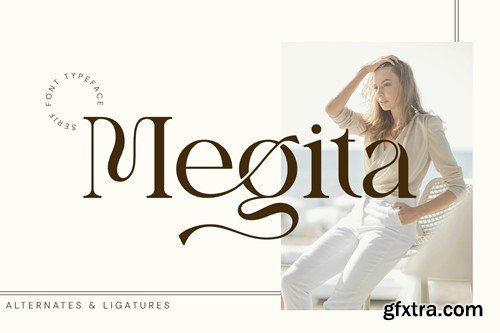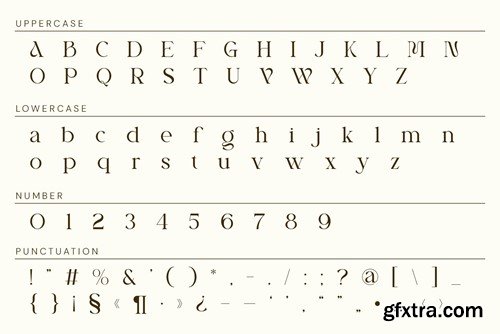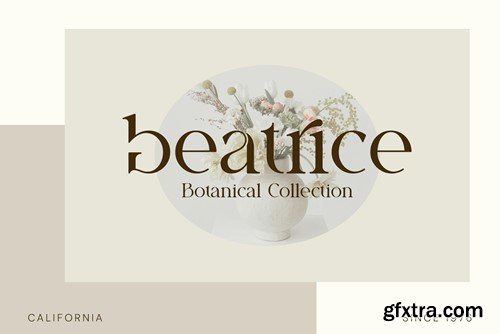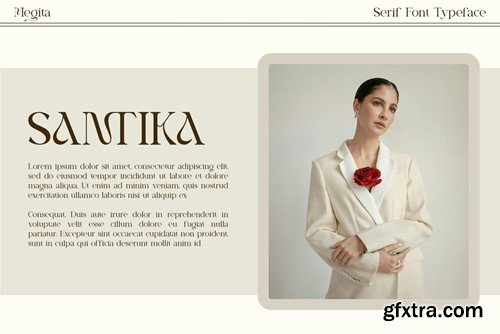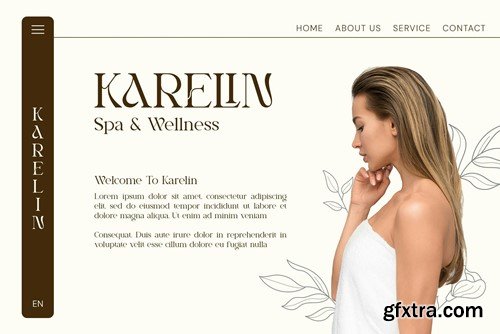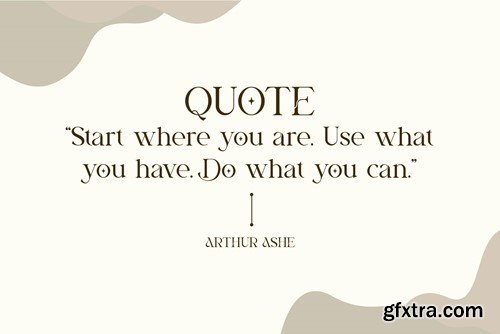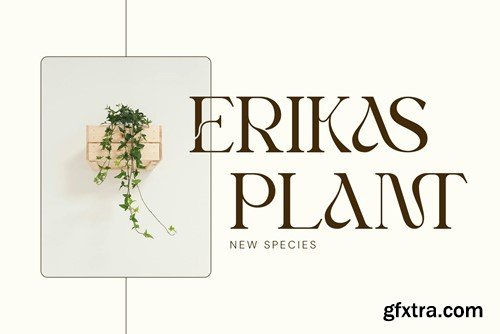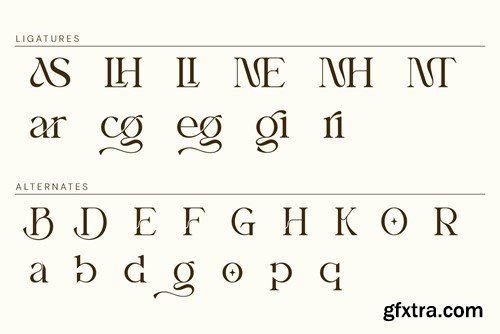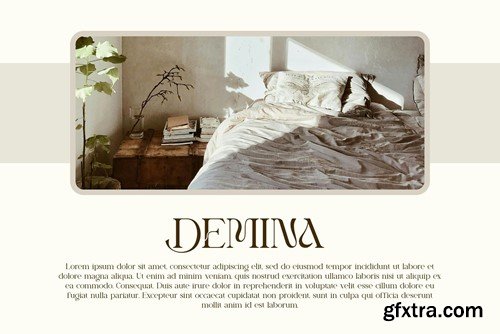
Megita Serif Font
Megita Serif is a balanced, smooth, elegant and stylish serif font. He has a beautiful character. It fits perfectly with invitation card designs, company logos, movie titles, movie names, business cards, book titles, brand names and various other designs. Megita Serif is a subtle serif font that exudes sophistication and elegance. Its stylish alternations and ligatures make this font the perfect partner for any project. FEATURE : Hope you like it. Thank you.